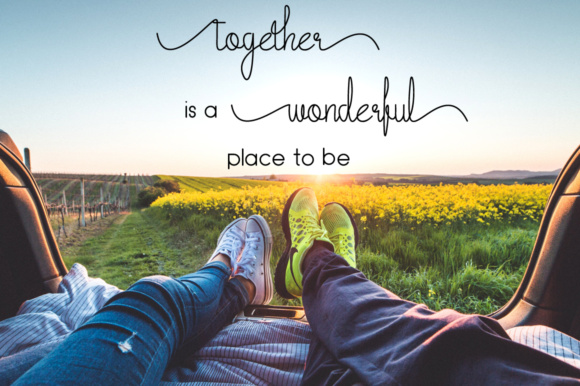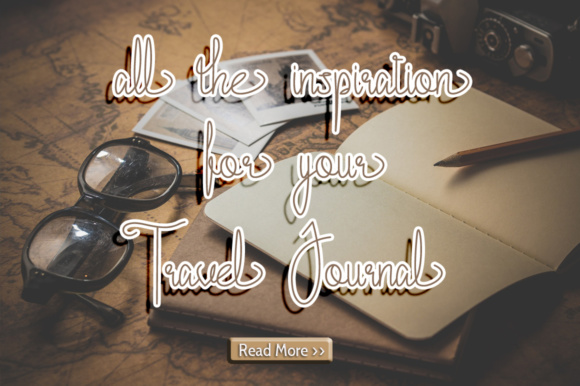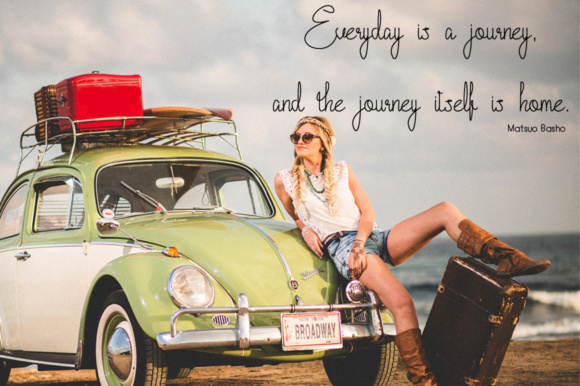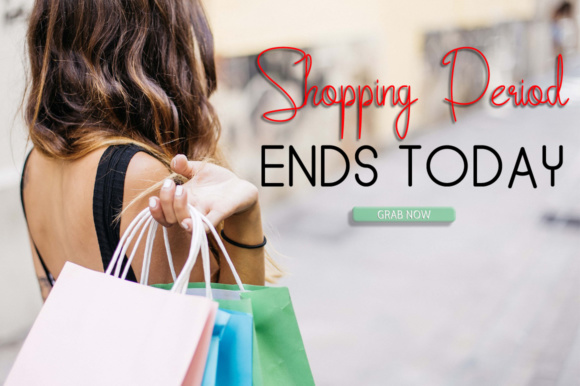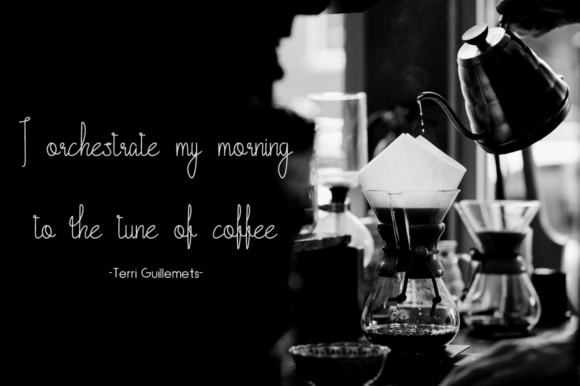
About Cattalleya Font
Cattalleya is a handwritten script font in a monoline style, with a fine line curve and three options of stylistic alternate make this font suitable for a wide range of project types and display applications. This is a modern font that works well in a ton of designs.